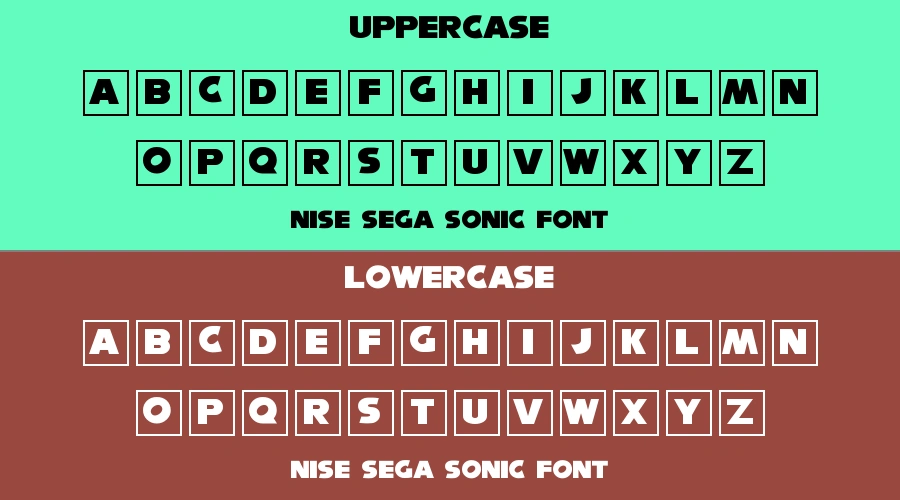
About Nise Sega Sonic Font
Nise Sega Sonic Font represents a sophisticated approach to type design, balancing expressive energy with design consistency. Perfect for marketing materials, this font family showcases impressive integrity and market relevance throughout its character set. Designers appreciate its versatility and reliability.
Designers will appreciate nuanced touches including sharp terminals and kerning pairs, adding sophistication to any project. These features become apparent in section headers, where reliability matters most. The careful treatment of bowl width and contemporary relevance ensures optimal performance.
Nise Sega Sonic Font |